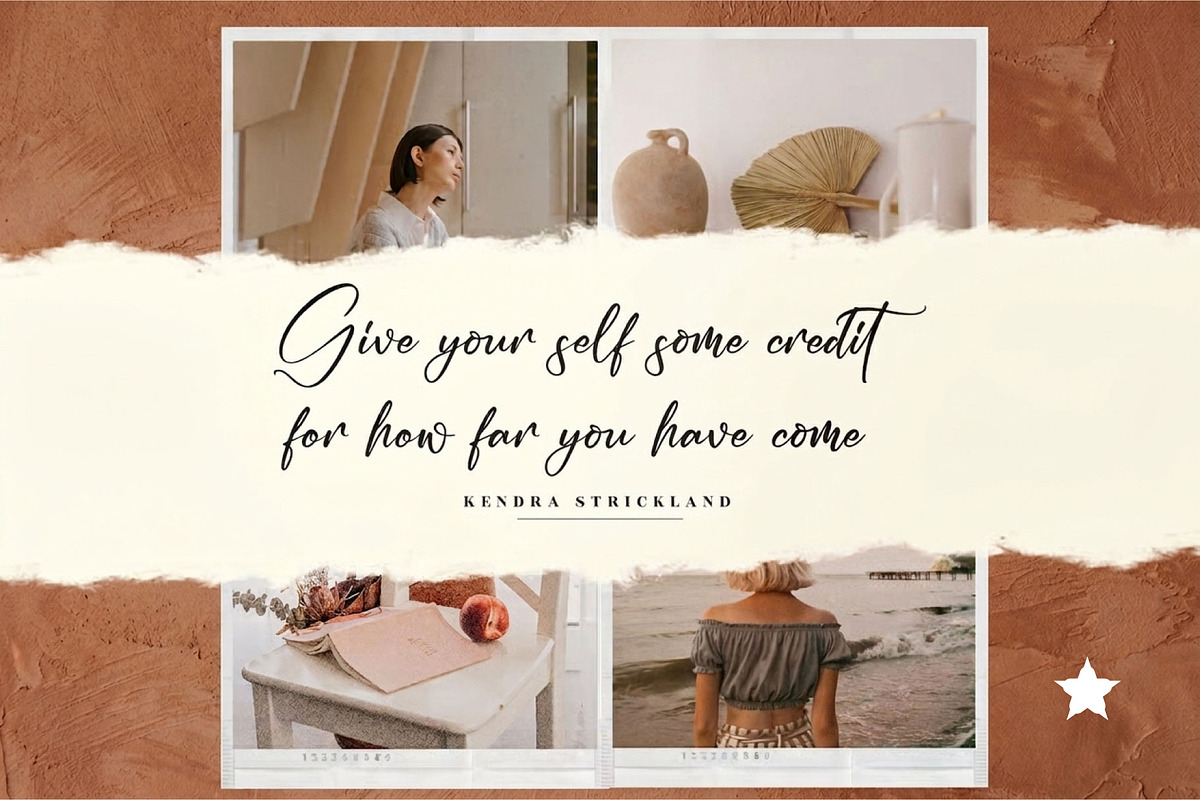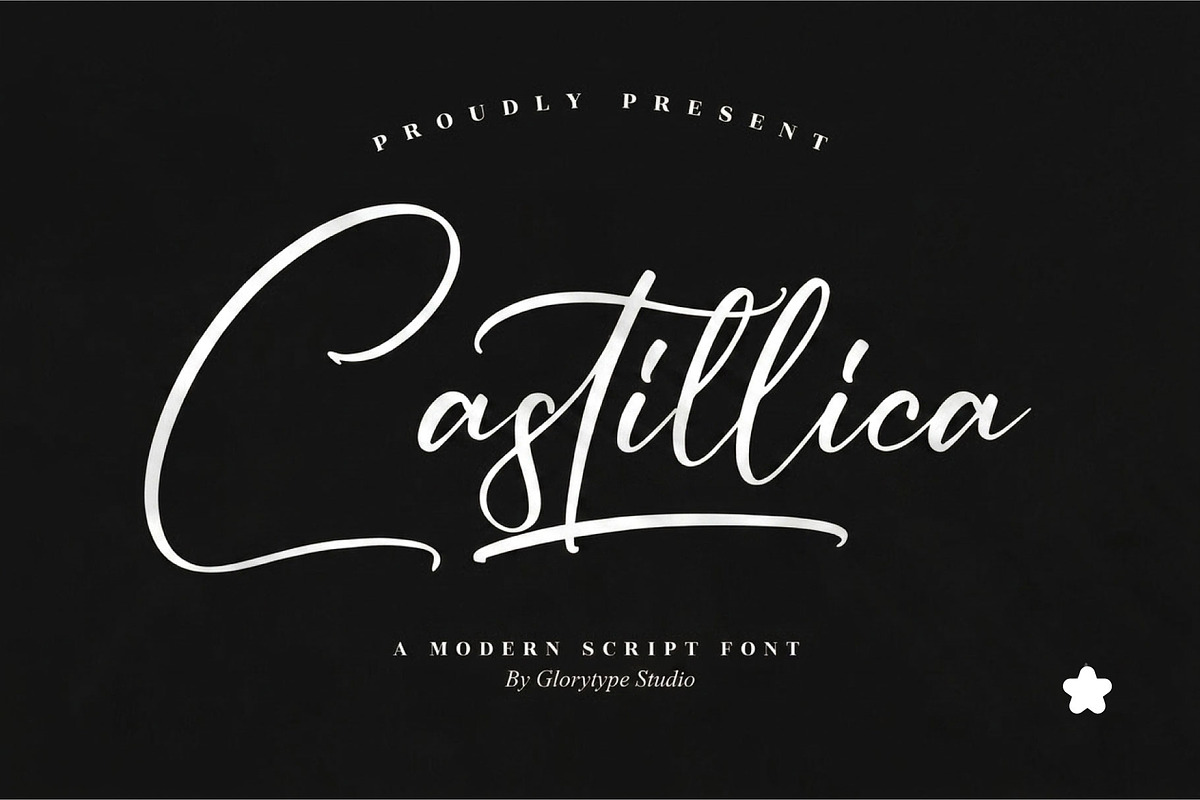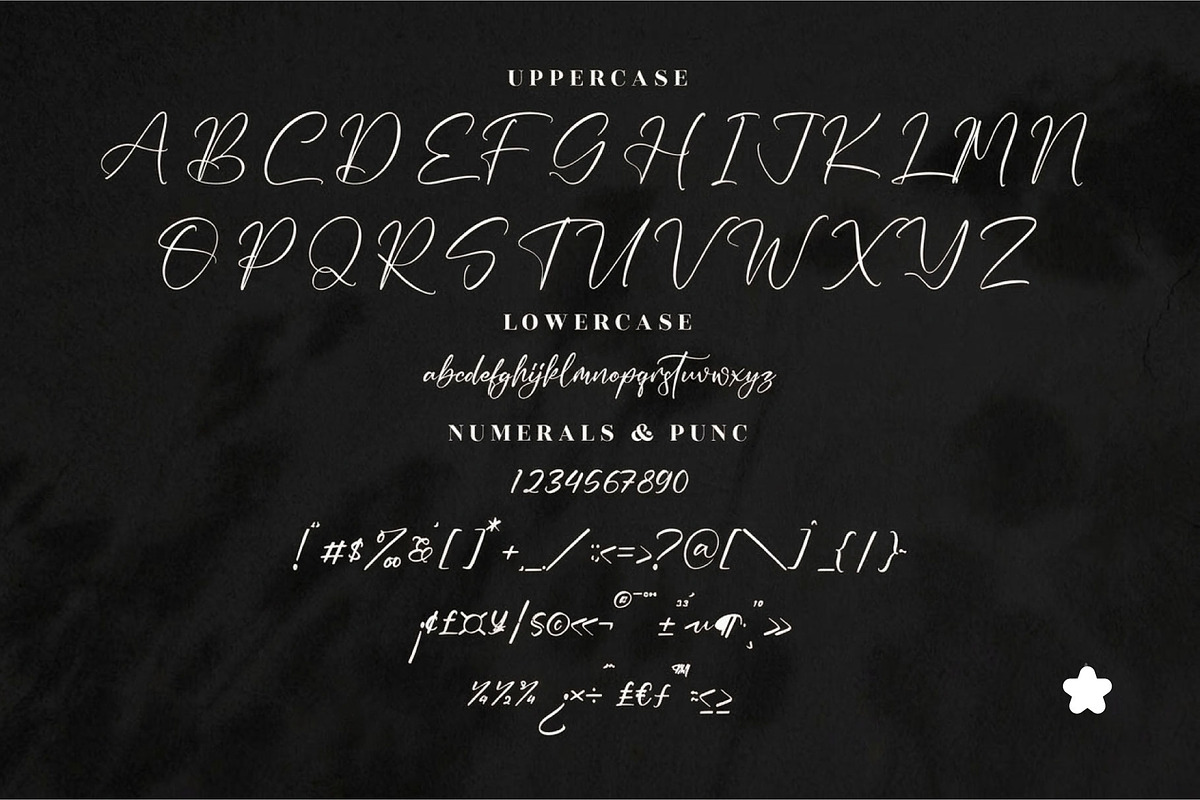
Castillica
Hi ladies & gentlemen, this is one of our fonts suitable to complement your digital and printed creative products. This font is perfect for posters, social media posts, branding, personal projects, etc.